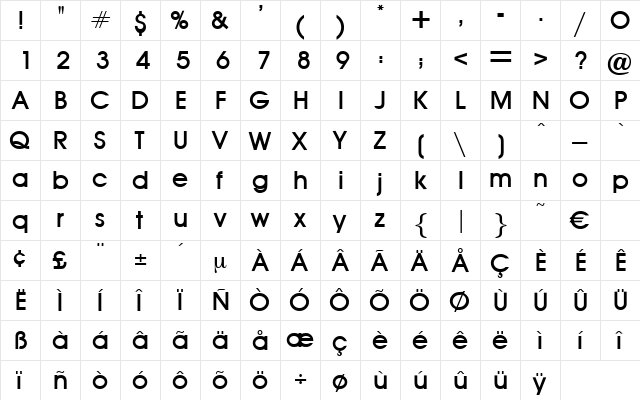
AuxinMedium Regular
Design Context for AuxinMedium Typeface
AuxinMedium takes a measured approach to typography — its balanced proportions and neutral character make it a reliable workhorse for both digital and print work.